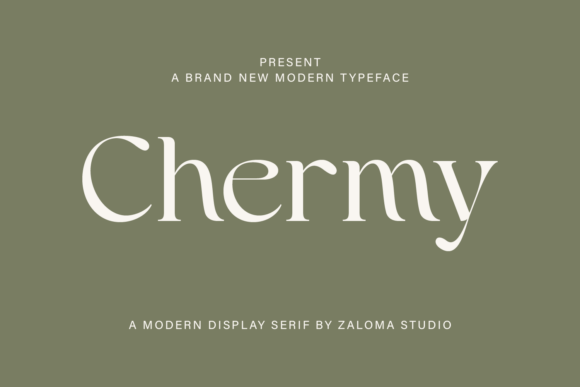
Introducing Chermy Font: The Epitome of Modern Elegance
In the realm of typography, few fonts manage to strike a balance between timeless elegance and contemporary flair. Chermy Font, however, achieves this delicate balance with remarkable finesse. As a modern display serif typeface, Chermy brings together the best of both worlds, offering a sophisticated aesthetic that is both luxurious and legible. In this article, we’ll delve into the intricacies of Chermy Font, exploring its design elements, use cases, and what makes it an exceptional choice for designers seeking to make a bold statement.
Design Elements of Chermy Font
Chermy Font is distinguished by its smooth curves, high contrast strokes, and refined details. These design elements work in harmony to create a sense of luxury and sophistication, making Chermy an ideal choice for projects that demand a high level of elegance. The smooth curves contribute to the font’s approachability and readability, while the high contrast strokes add a touch of drama and flair. The refined details, meanwhile, ensure that the font remains uncluttered and precise, even at larger sizes.
Who is Chermy Font For?
Chermy Font is perfect for a wide range of design projects, including:
- Editorials: Add a touch of sophistication to your magazine or newspaper with Chermy’s elegant serif design.
- Branding: Establish your brand’s luxury credentials with a font that exudes refinement and poise.
- Logos: Create a lasting impression with a custom logo that leverages Chermy’s unique character shapes and sharp serifs.
- Fashion: Elevate your fashion brand with a font that embodies style, sophistication, and glamour.
- Design Projects: Any project that requires a bold and elegant statement can benefit from Chermy Font’s distinctive aesthetic.
What Makes Chermy Font Stand Out?
Several key features set Chermy Font apart from other serif typefaces:
- Unique Character Shapes: Chermy’s distinctive character shapes add a touch of whimsy and charm to your designs.
- Sharp Serifs: The font’s sharp serifs provide a sense of precision and sophistication.
- Graceful Terminals: Chermy’s terminals are designed to flow smoothly into the rest of the text, enhancing readability.
- High Readability: Despite its elegant design, Chermy remains highly legible, even at smaller sizes.
How Does Chermy Compare to Other Serif Fonts?
While many serif fonts can convey a sense of tradition and heritage, few manage to balance elegance with modernity. Chermy Font stands out in this regard, offering a fresh take on the classic serif design. Compared to more traditional serif fonts, Chermy is:
- More Elegant: Chermy’s refined details and smooth curves create a more luxurious aesthetic.
- More Versatile: The font’s unique character shapes and high contrast strokes make it suitable for a wide range of design projects.
- More Legible: Chermy’s design prioritizes readability, making it an excellent choice for body text and headlines.
Tips for Using Chermy Font Effectively
To get the most out of Chermy Font, consider the following tips:
- Use it as a Headline Font: Chermy’s bold and elegant design makes it perfect for headlines and titles.
- Pair it with a Sans-Serif Font: Combine Chermy with a sans-serif font for body text to create visual interest and contrast.
- Experiment with Font Sizes: Chermy’s legibility and elegance are maintained even at smaller sizes, making it suitable for a range of design applications.
- Pay Attention to Kerning: As with any font, pay attention to kerning to ensure that your text looks polished and refined.
In conclusion, Chermy Font is a modern display serif typeface that embodies the perfect blend of timeless elegance and contemporary flair. Its smooth curves, high contrast strokes, and refined details make it an exceptional choice for designers seeking to add a touch of luxury and sophistication to their projects. Whether you’re working on editorials, branding, logos, fashion, or any design project that calls for a bold and elegant statement, Chermy Font is sure to impress.